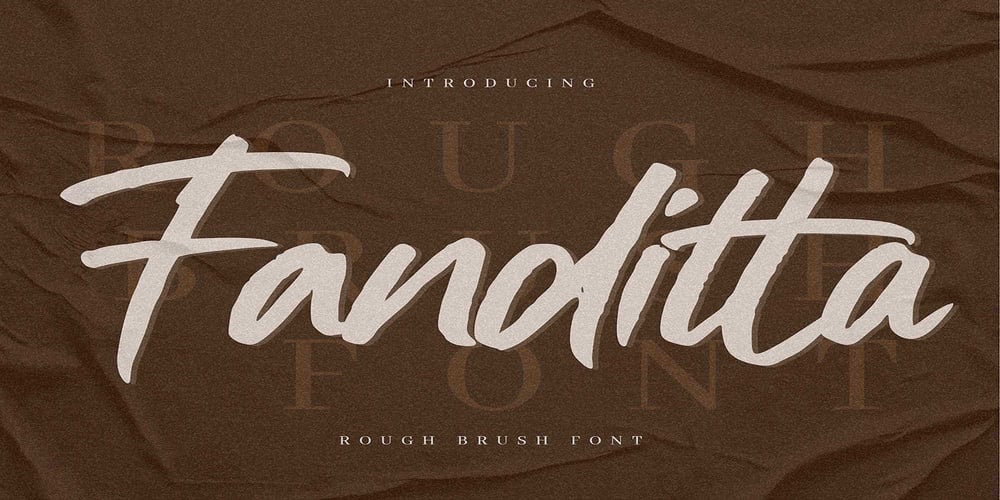
Fanditta
Fanditta font
Fanditta Font Family was designed by Abdul Malik Wisnu, Anang Fibriyanto and published by Gassstype. Fanditta contains 1 styles and family package options. Hello Everyone, introduce our new product Font Fanditta This Is Rough Brush Font.This is a Textured Natural Style and classy style with a clear style and dramatic movement.That is has charming, authentic and relaxed characteristic more natural look to your text. You can activate 20 Ligatures and 21 Alternate glyphs OpenType panel.